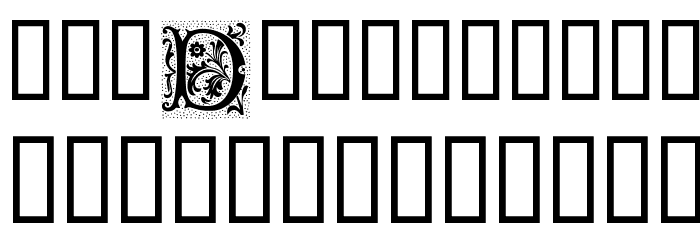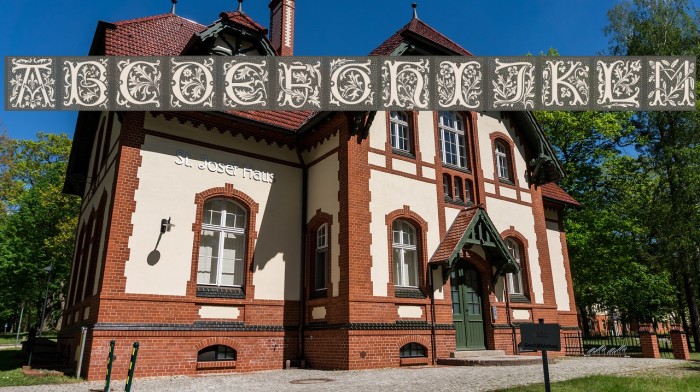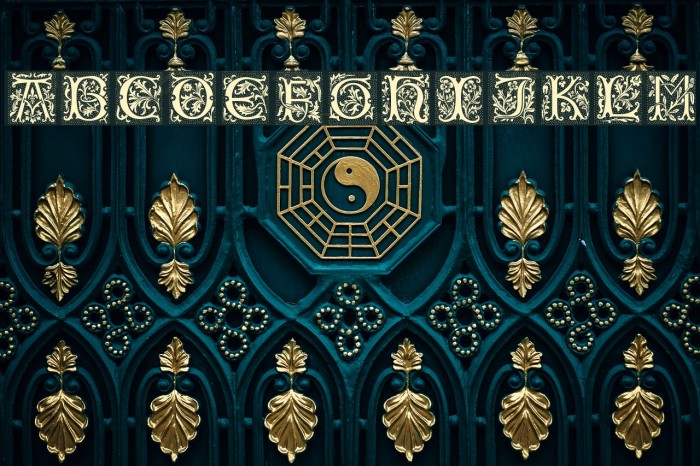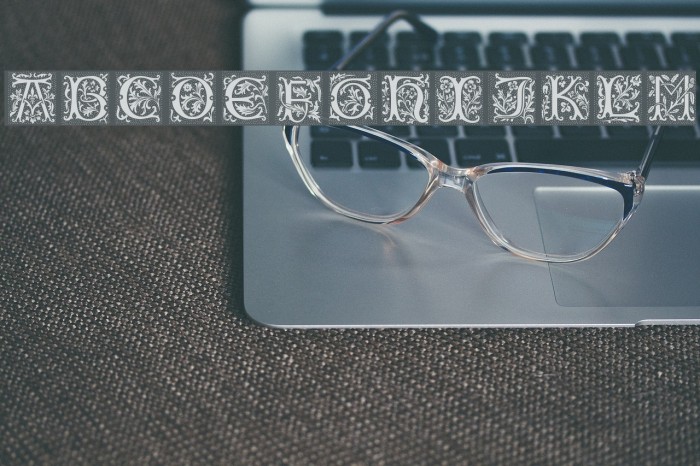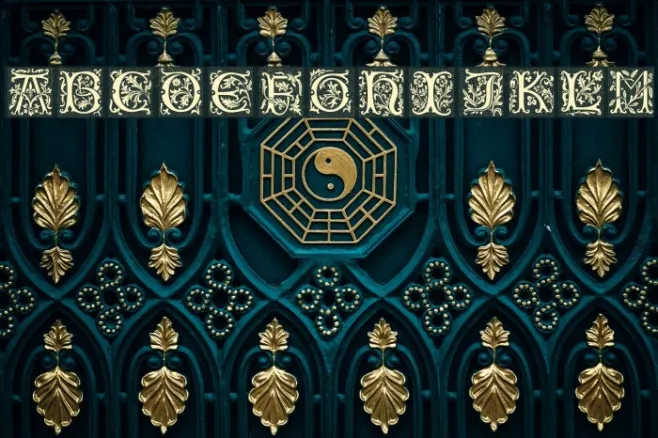
PetitFleur Light Font
This font is a highly decorative and ornate typeface, featuring intricate floral and vine-like embellishments within each letter. The uppercase letters are designed with a high level of detail, making them appear almost like miniature works of art. The style is reminiscent of illuminated manuscripts, with each character enclosed in a square frame that adds to the overall decorative effect. The font's intricate design makes it suitable for special occasions or projects that require a touch of elegance and sophistication.
An ornate, decorative font with intricate floral embellishments.
- Proposed Projects: Ideal for wedding invitations, luxury branding, book covers, and decorative headings.
- Overall Style: Vintage